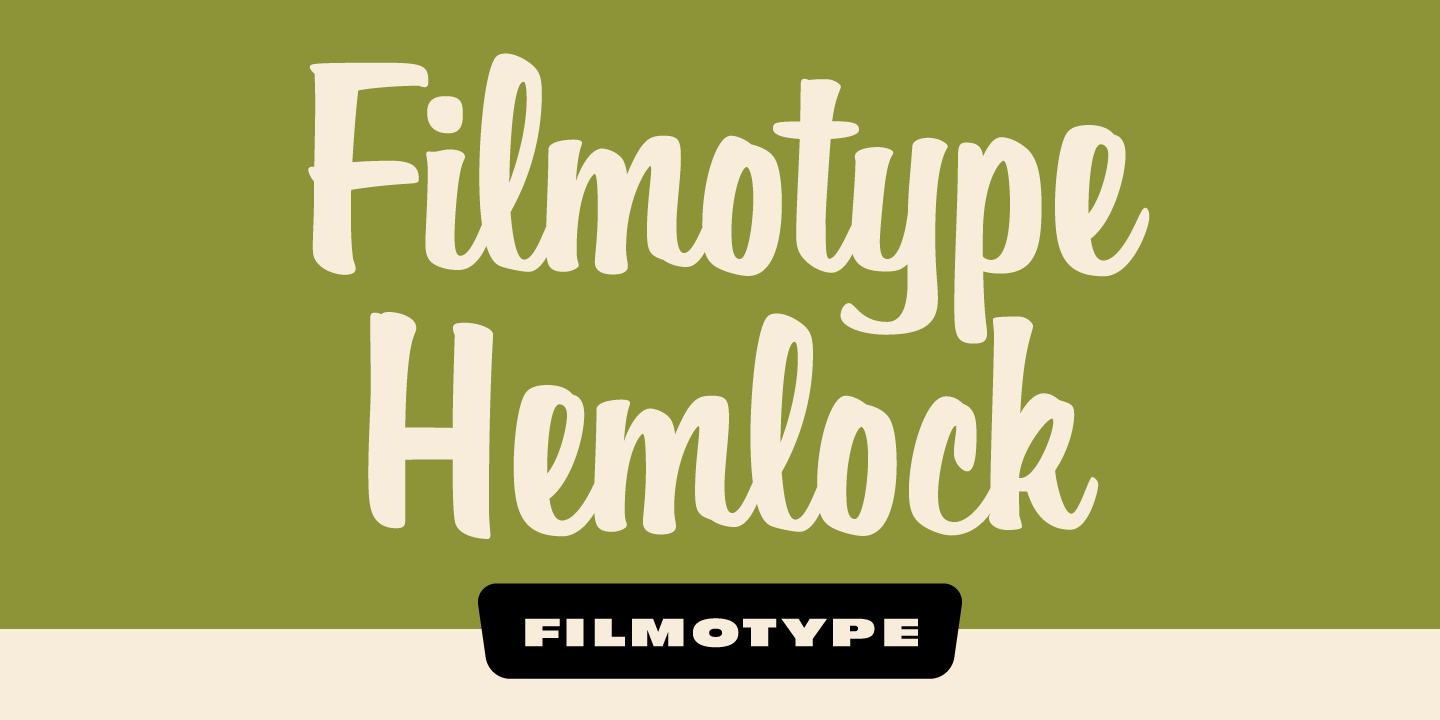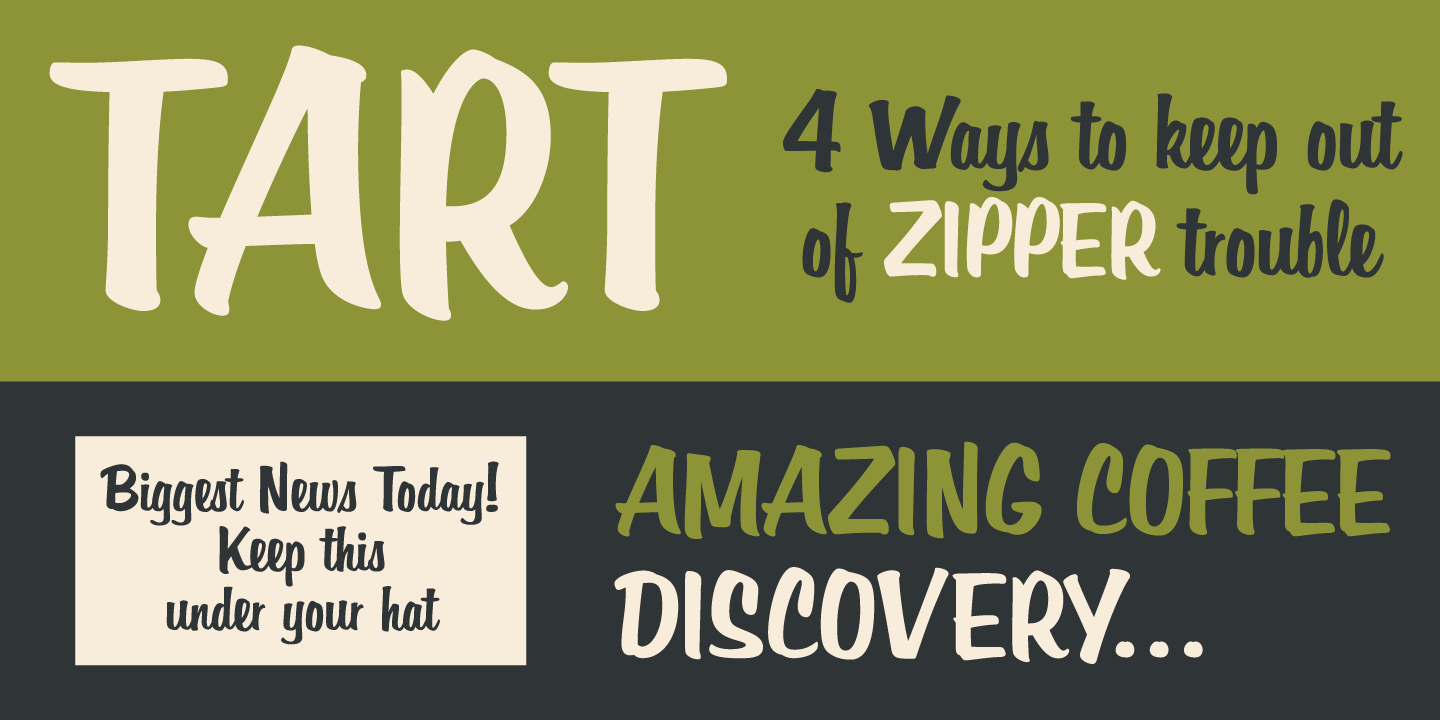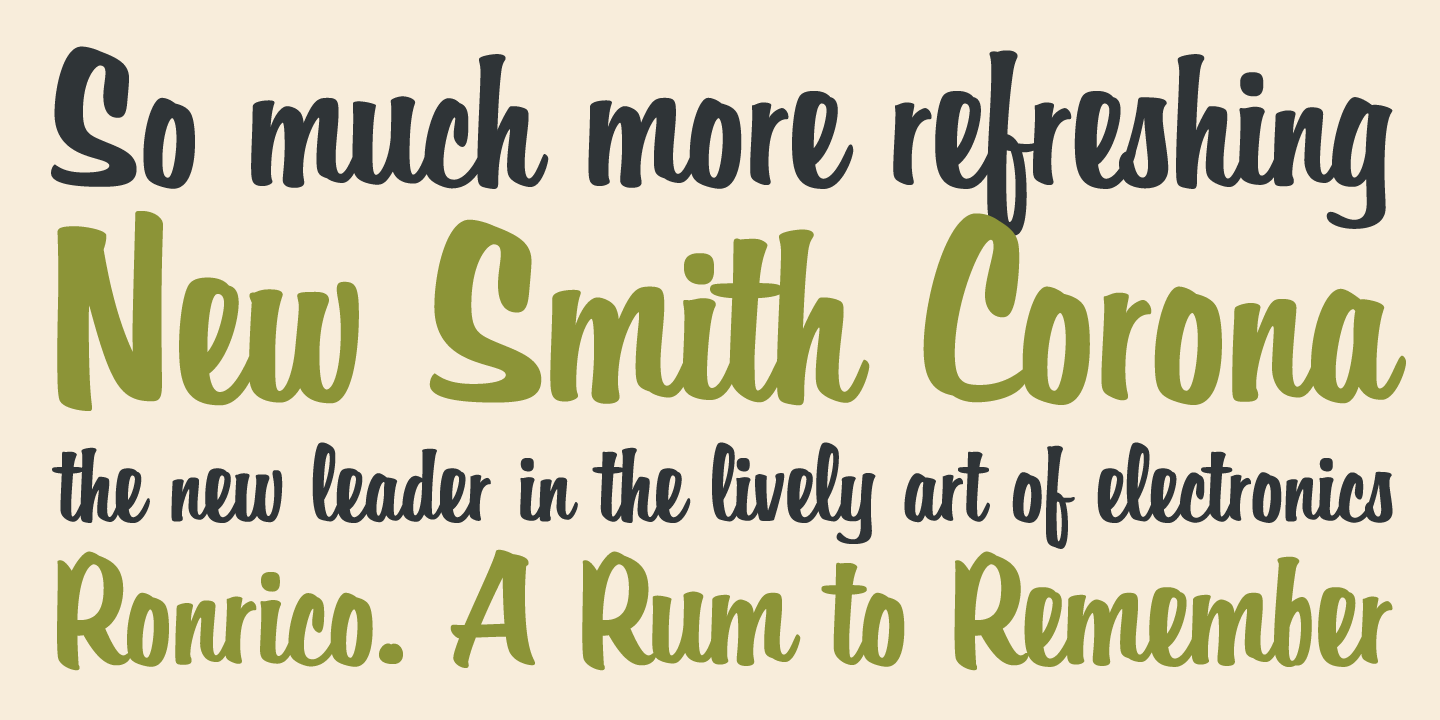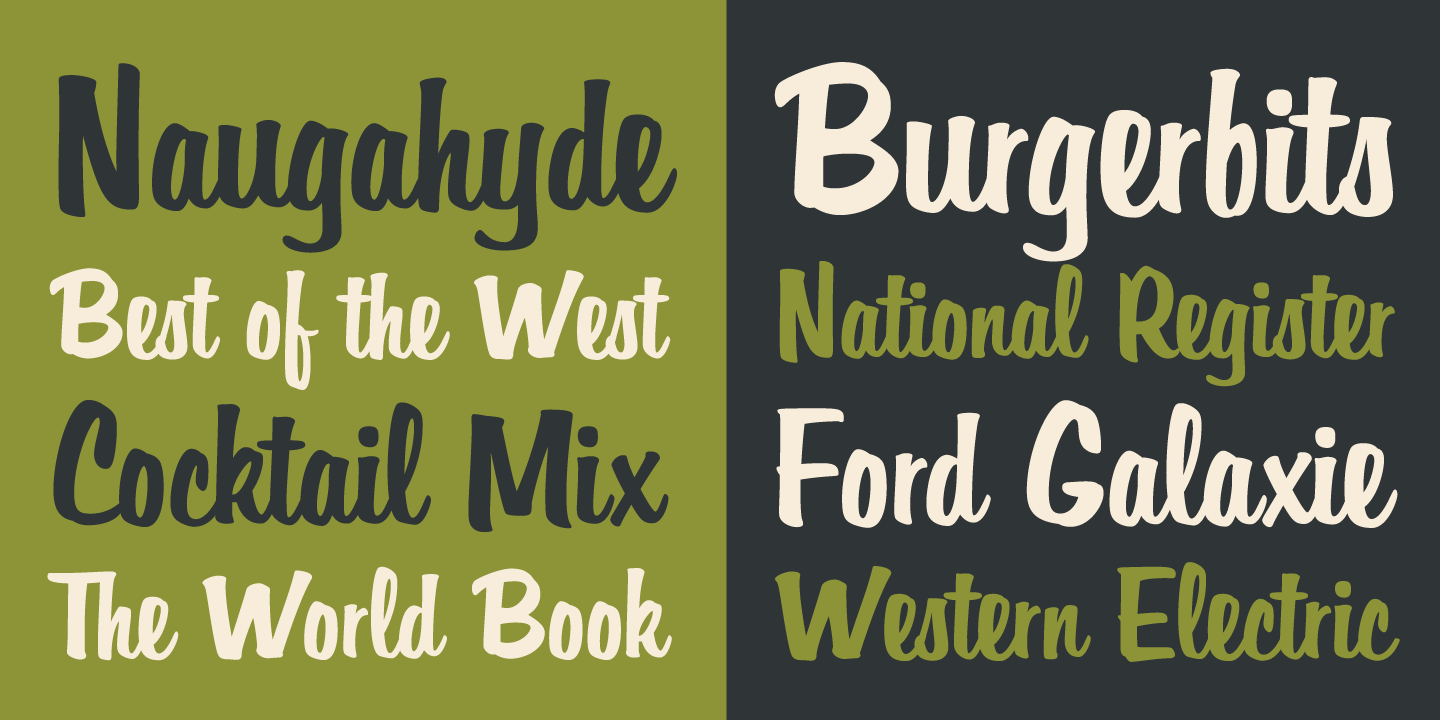
Filmotype Hemlock
Introduced by Filmotype in the early-to-mid 1950s, Filmotype Hemlock owes its origins to classic sign painter sho-card lettering popular in the late 1940s through the 1950s. This thick upright script was among Filmotype's most popular brush script style typefaces and saw use in window signage, store spectaculars and periodical advertising.
Filmotype Hemlock was developed from the original font filmstrips and includes a full international character compliment, automatic fractionals, ordinals, and a gigantic compliment of alternate characters and ligatures creating a genuine connecting hand painted look in dynamic OpenType format.